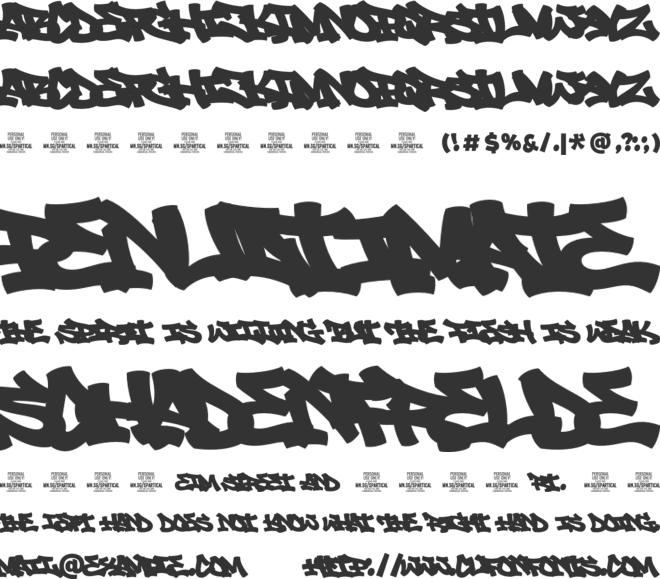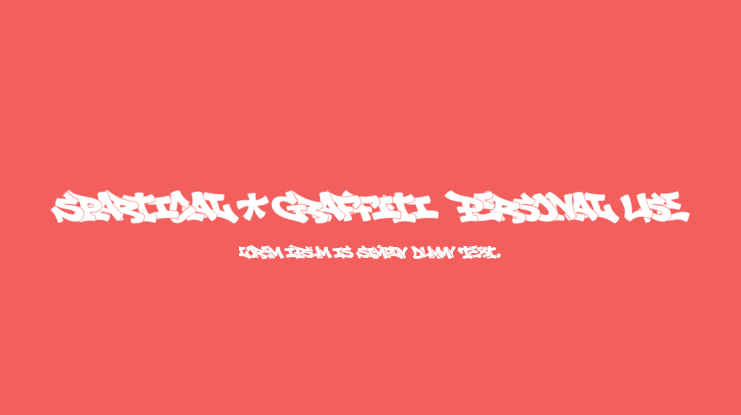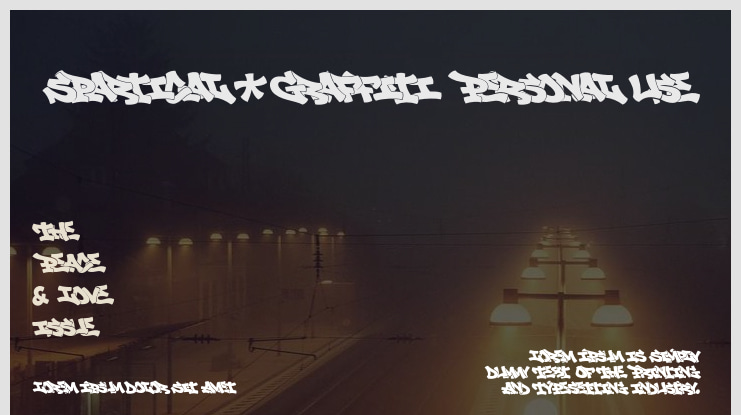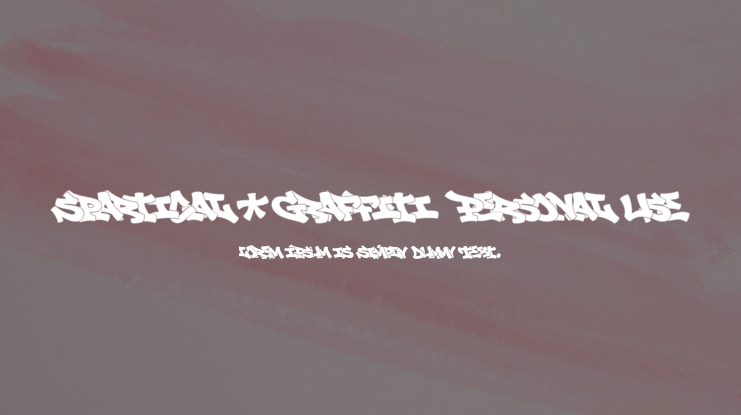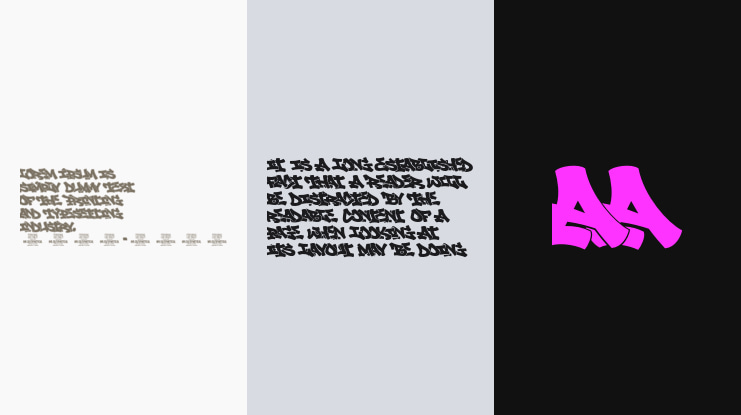
Spartical Graffiti PERSONAL USE Font
Spartical Graffiti embodies the raw energy and dynamic essence of hip hop and urban culture.
Enable contextual ligatures for letter overlapping effect!